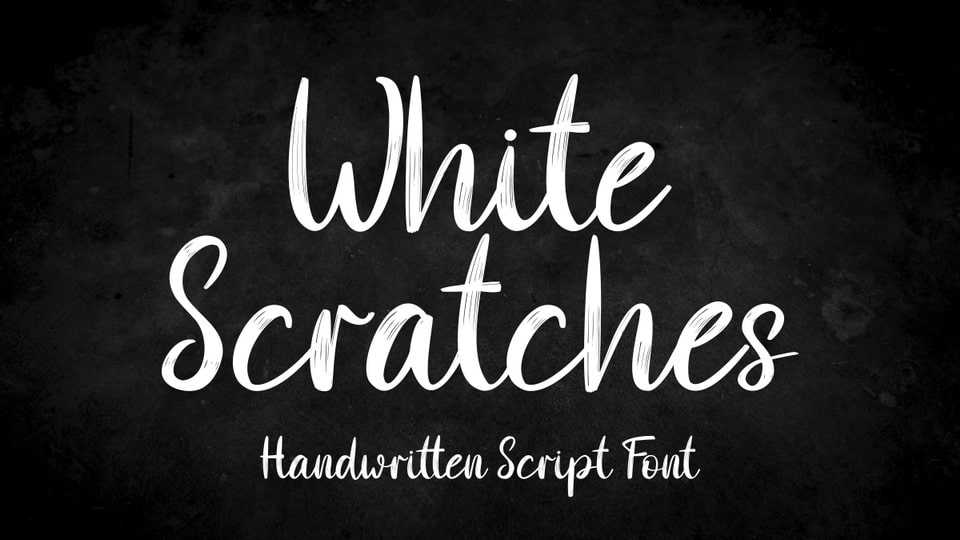
Download White Scratches font, a handwritten script typeface. Its elegant and cool look makes White Scratches font the perfect choice for logos, branding, invitations, stationery, wedding designs, social media posts, and so much more.